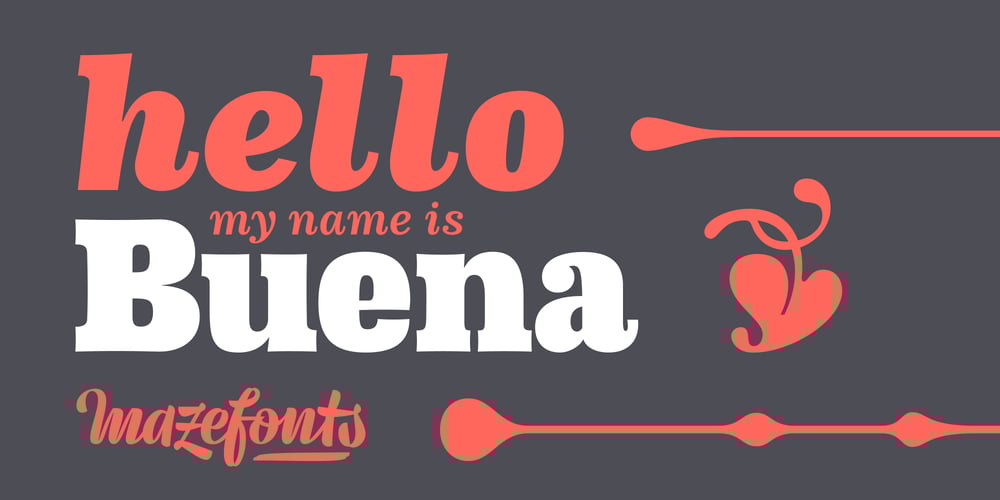
Buena Font Family was designed by Matthias Wieber and published by mazefonts. Buena contains 12 styles and family package options. Hello Buena – From Wood to Digital TypeBuena is the first word I read on a letterpress paper, printed by my colleague and friend Wolfgang Wick.I was fascinated by the power of this fat wooden letters at first glance. So I started to create a digital version ofit and »Buena Black« was born. Due to the fact that the original punches had only upper-case glyphs, I created the lowercase characters by myself. After that it was time to design the family…Buena is full of OpenType features. To get fully acces, go to www.mazefonts.de and Download the Type Specimen.